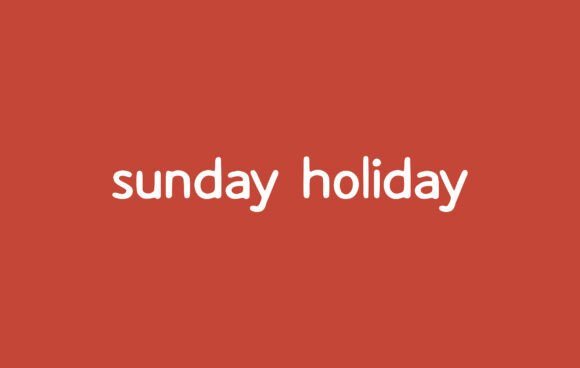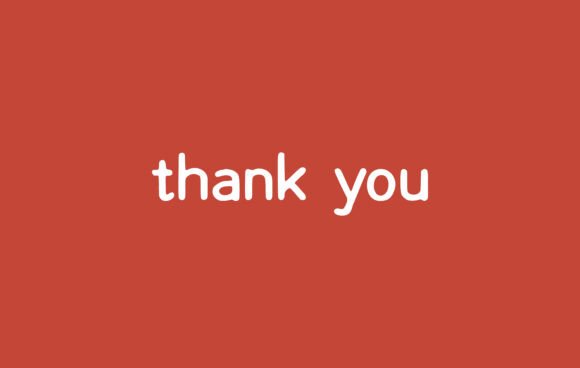
Costa Brava Font: Elevate Your Designs with a Romantic Handwritten Touch
Are you on the lookout for a font that can add a touch of romance and elegance to your designs? Look no further than the Costa Brava font. This authentic handwritten font is expertly designed to capture the hearts of designers and crafters alike, making it a true favorite for a wide range of creative projects.
What Makes Costa Brava Font Stand Out?
Costa Brava font boasts a unique blend of authenticity and sophistication, making it an ideal choice for designers seeking to elevate their creative ideas. Here are some key features that set this font apart:
- Authentic Handwritten Style: Costa Brava font is crafted with love and care to mimic the natural flow of handwritten text. Its authentic feel adds a personal touch to any design, making it perfect for projects that require a human touch.
- Romantic Touch: The font’s romantic undertones evoke feelings of warmth and elegance, making it an excellent choice for designs that require a touch of sophistication.
- Legibility: Despite its handwritten nature, Costa Brava font is remarkably legible, making it suitable for use as both title and body text.
- Versatility: This font is incredibly versatile and can be used for a wide range of designs, including magazine headlines, social media graphics, branding materials, wedding invitations, cards, and more.
Why Designers and Crafters Love Costa Brava Font
Costa Brava font has quickly become a favorite among designers and crafters due to its unique combination of style and functionality. Here are some reasons why:
- Easy to Read: The font’s clear and legible design ensures that your message is conveyed effectively, making it perfect for designs that require a high level of readability.
- Highly Customizable: Costa Brava font can be easily customized to fit your design needs, allowing you to experiment with different colors, sizes, and styles.
- Unique and Eye-Catching: The font’s authentic handwritten style and romantic undertones make it a standout choice for designers seeking to create unique and eye-catching designs.
Perfect for a Wide Range of Designs
Costa Brava font is an incredibly versatile font that can be used for a wide range of designs, including:
- Magazine Headlines: Add a touch of elegance and sophistication to your magazine headlines with Costa Brava font.
- Social Media Graphics: Elevate your social media graphics with a romantic and authentic touch.
- Branding Materials: Use Costa Brava font to create unique and memorable branding materials that reflect your brand’s personality.
- Wedding Invitations: Add a touch of romance and elegance to your wedding invitations with Costa Brava font.
- Cards and Stationery: Use Costa Brava font to create beautiful and heartfelt cards and stationery.
In conclusion, Costa Brava font is an exceptional choice for designers and crafters seeking to add a romantic and authentic touch to their designs. With its unique blend of style, functionality, and versatility, this font is sure to become a favorite in your design arsenal. Whether you’re working on a magazine headline, social media graphic, branding material, wedding invitation, or card, Costa Brava font is the perfect choice to elevate your creative ideas to the highest level.